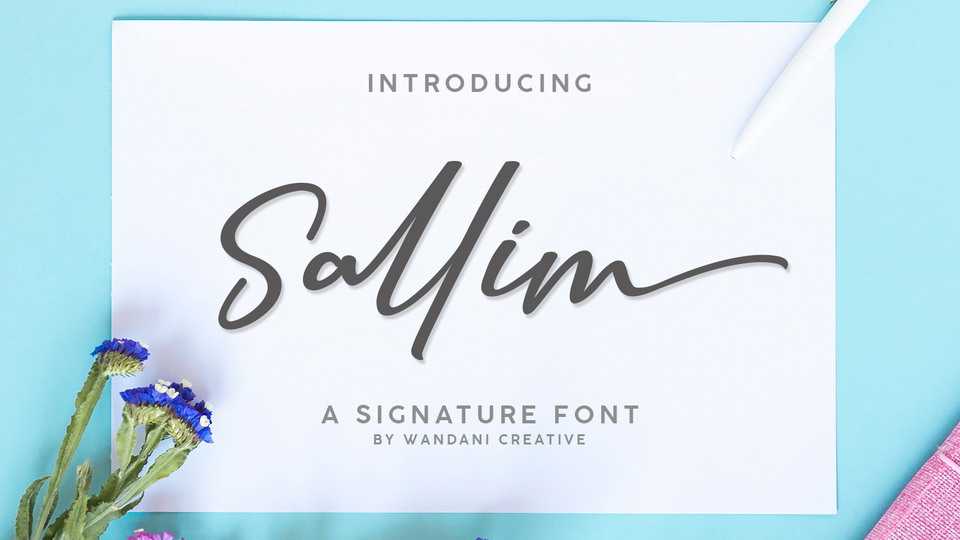
Download Sallim font, a stylish signature script. Sallim font is perfectly suited to logo, stationery, poster, apparel, branding, advertisements, product packaging, product designs, labels, wedding invitation, card, tagline, layout design, and much more!